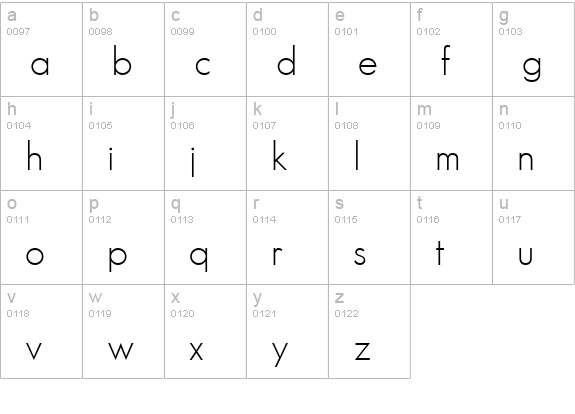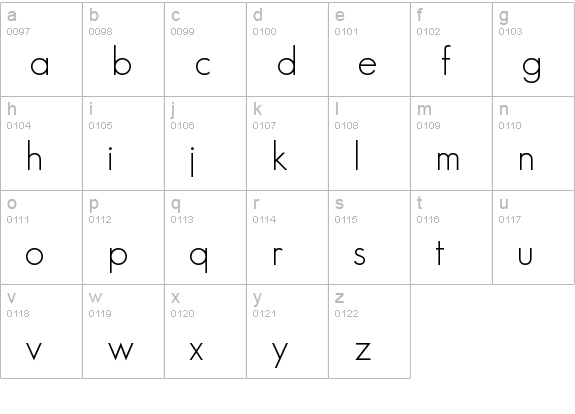
Bougan SSi font is a modern and elegant typeface that brings sophistication to any design project. With its sleek lines and stylish curves, this font is perfect for creating eye-catching headlines, logos, and branding materials. The versatility of Bougan SSi font makes it suitable for a wide range of applications, from print to digital media. The best part about Bougan SSi font is that it is completely free to download at FontsMarket.com. This means you can access this high-quality font without any cost, making it a valuable resource for designers and creatives looking to elevate their work. Don't miss out on the opportunity to enhance your projects with the beautiful Bougan SSi font – download it for free today at FontsMarket.com!